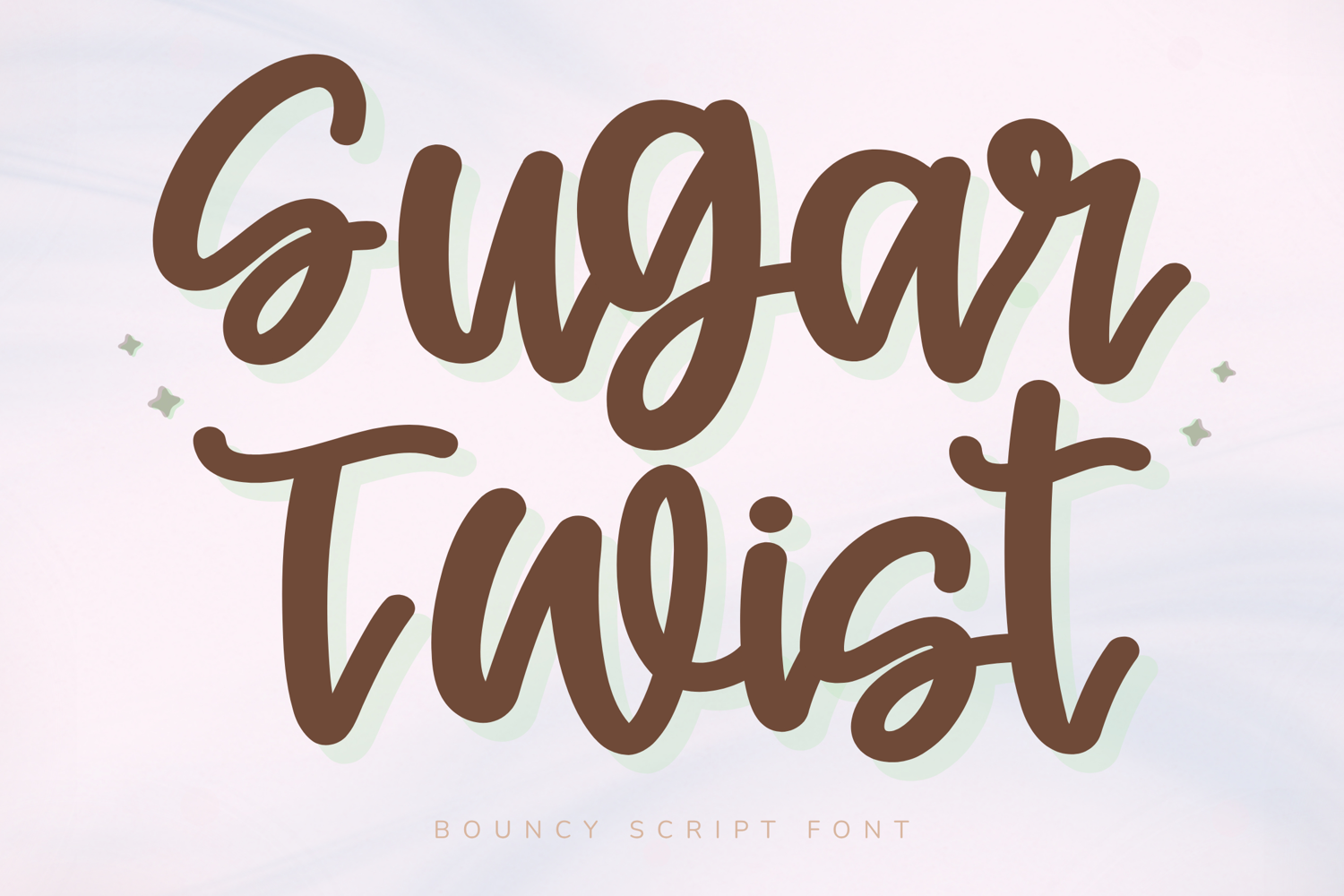
Sugar Twist Bouncy Script Font
Sugar Twist – Bouncy Script Font
Sugar Twist is a sweet and playful bouncy script font filled with cheerful energy and feminine charm. With bold rounded strokes, lively curves, and a handcrafted handwritten feel, this font adds a fun and stylish touch to any creative project.
Designed to stand out while remaining highly readable, Sugar Twist is perfect for Cricut crafts, stickers, planner covers, journal pages, classroom materials, branding, packaging, and social media graphics. Its whimsical personality makes every design feel warm, inviting, and full of joy.
Key Features:
Uppercase and lowercase letters
Numbers and punctuation
Bouncy handwritten script style
Thick rounded strokes
Smooth flowing connections
Perfect For:
Cricut and Silhouette projects
Stickers and printables
Teacher resources
Logos & Branding
Product packaging
T-shirt and mug designs
Social media graphics
Planner and journal designs
Best Use Cases:
Sticker sheets
Classroom worksheets
Boutique logos
Product labels
T-shirts and mugs
Planner covers
Design Style:
Sugar Twist combines playful movement with soft rounded shapes to create a font that feels joyful, sweet, and effortlessly stylish. The bouncy baseline gives each word a lively handcrafted appearance that is both cute and professional.